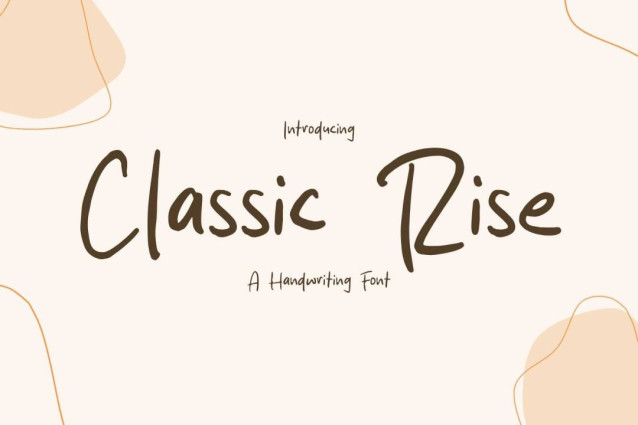
Classic Rise Font
Classic Rise Font is a simple and friendly handwritten font. Its natural and unique style makes it incredibly fitting to a large pool of designs. The only limit is your imagination!